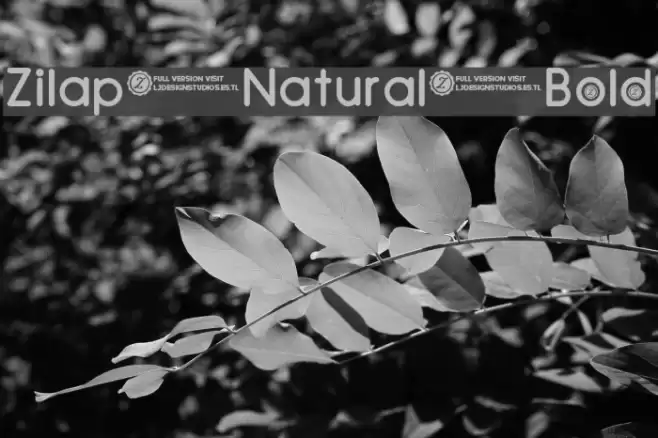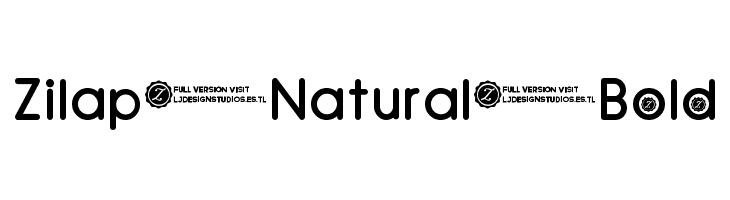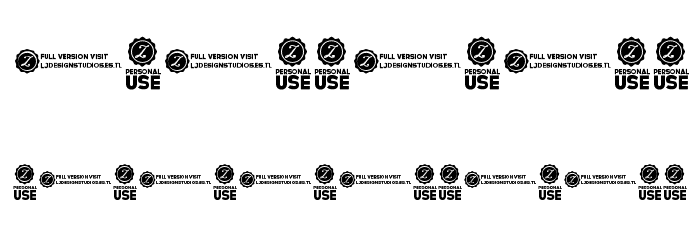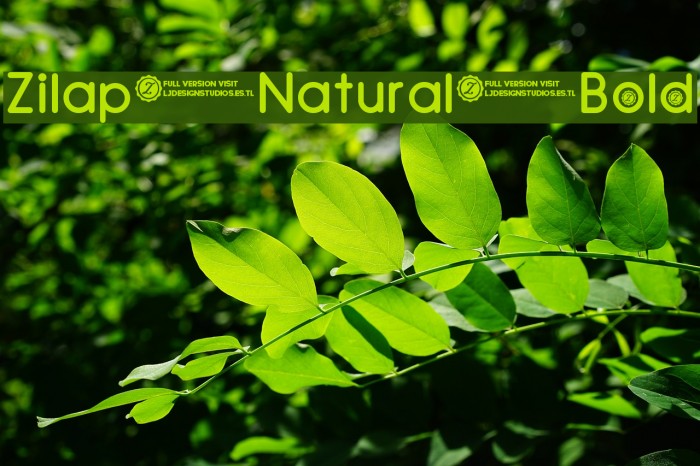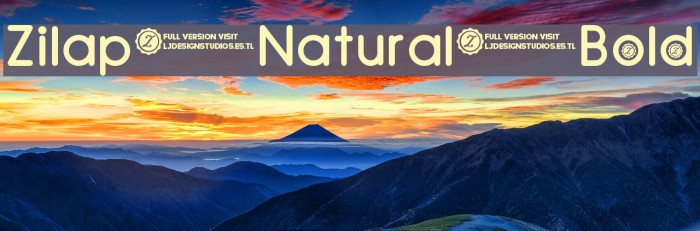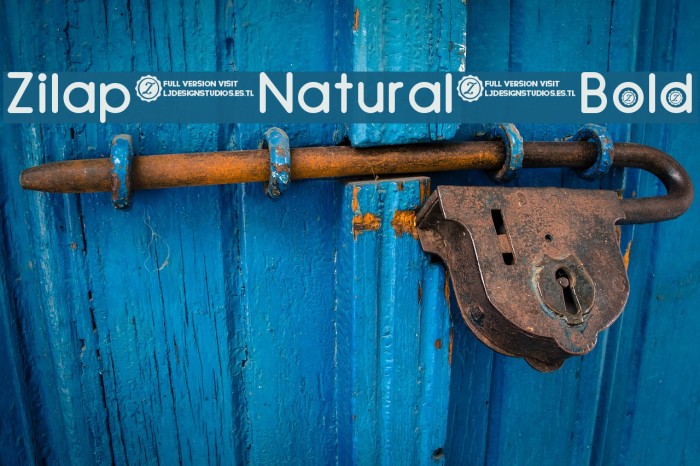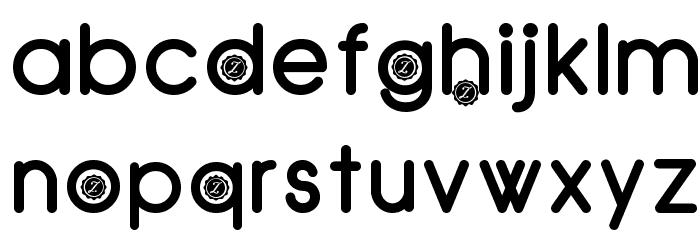
Zilap Natural Bold Font
Zilap Natural Bold Description
This font features a bold and rounded style, characterized by its smooth curves and uniform stroke width. The letters are evenly spaced, providing a clean and modern appearance. The uppercase and lowercase characters maintain a consistent design, enhancing readability. The font's rounded edges give it a friendly and approachable look, making it suitable for various design applications. The numerals and special characters are designed to match the overall aesthetic, ensuring a cohesive appearance across all text elements.
A bold, rounded font with smooth curves and uniform stroke width from Uncategorized fonts.
- Proposed Projects: Ideal for branding, headlines, posters, and digital content that requires a modern and approachable feel.
- Use Case: Headlines, Logos, Branding